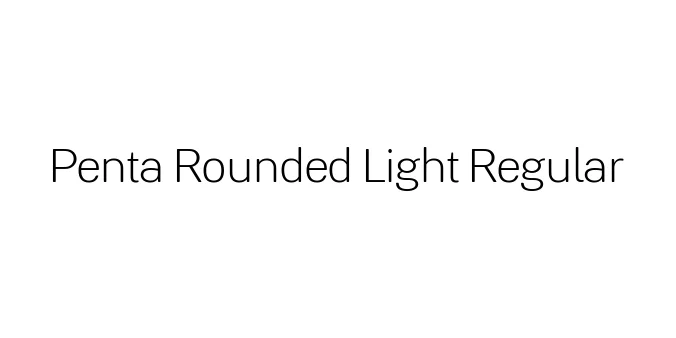
Penta Rounded Light Regular
Designed by Ralph M. Unger
| Font Name | Penta Rounded Light |
| Category | Sans-Serif Rounded |
| Designer | Ralph M. Unger |
Penta Rounded Light Regular is a contemporary sans-serif typeface that belongs to the broader Penta family, a series known for its geometric precision and modern aesthetic. Developed with a focus on softened terminals and a high x-height, this specific light weight version was crafted to provide an airy, elegant feel while maintaining the structural integrity required for professional typesetting. It draws inspiration from mid-century modernist designs but updates the aesthetic for the digital age, stripping away harsh corners in favor of a more approachable, friendly silhouette.
The design of Penta Rounded Light Regular excels in environments where clarity and a gentle tone are paramount. Its thin strokes and perfectly circular curves offer a clean look that avoids the coldness often associated with strictly geometric fonts. This typeface is particularly effective in minimalist layouts, where its delicate weight can shine without being overshadowed by heavy graphic elements, making it a staple for designers looking for a balance between technical accuracy and a soft, human touch.
Penta Rounded Light Regular Best Uses
Ideal for creating soft, approachable corporate identities and logos.
Perfect for mobile app buttons and headers where a clean, modern look is needed.
Excellent for pull quotes and light body text in high-end fashion or design magazines.
Well-suited for minimalist poster designs and tech-focused promotional materials.